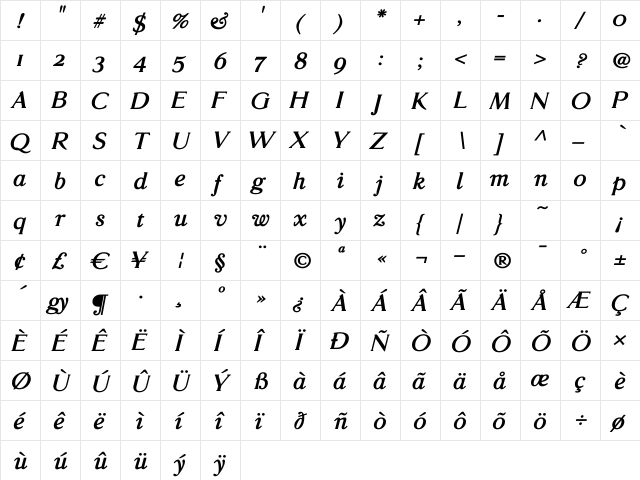
GlossoBold Italic Regular Font Preview
GlossoBold Italic Regular
GlossoBold Italic Regular Font Details
Design Context for GlossoBold Italic Typeface
GlossoBold Italic offers clean, dependable letterforms without strong stylistic allegiance, making it a practical choice for designers who need flexibility. The dynamic lean of this cut emphasises speed and emphasis in any layout. Its bold stroke weight gives it real presence on the page.